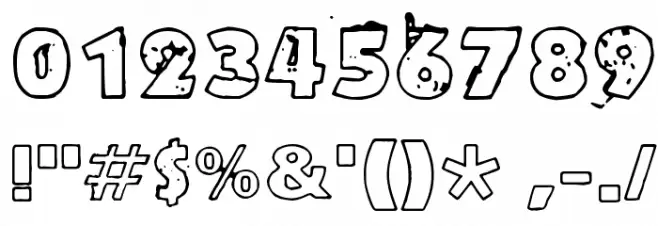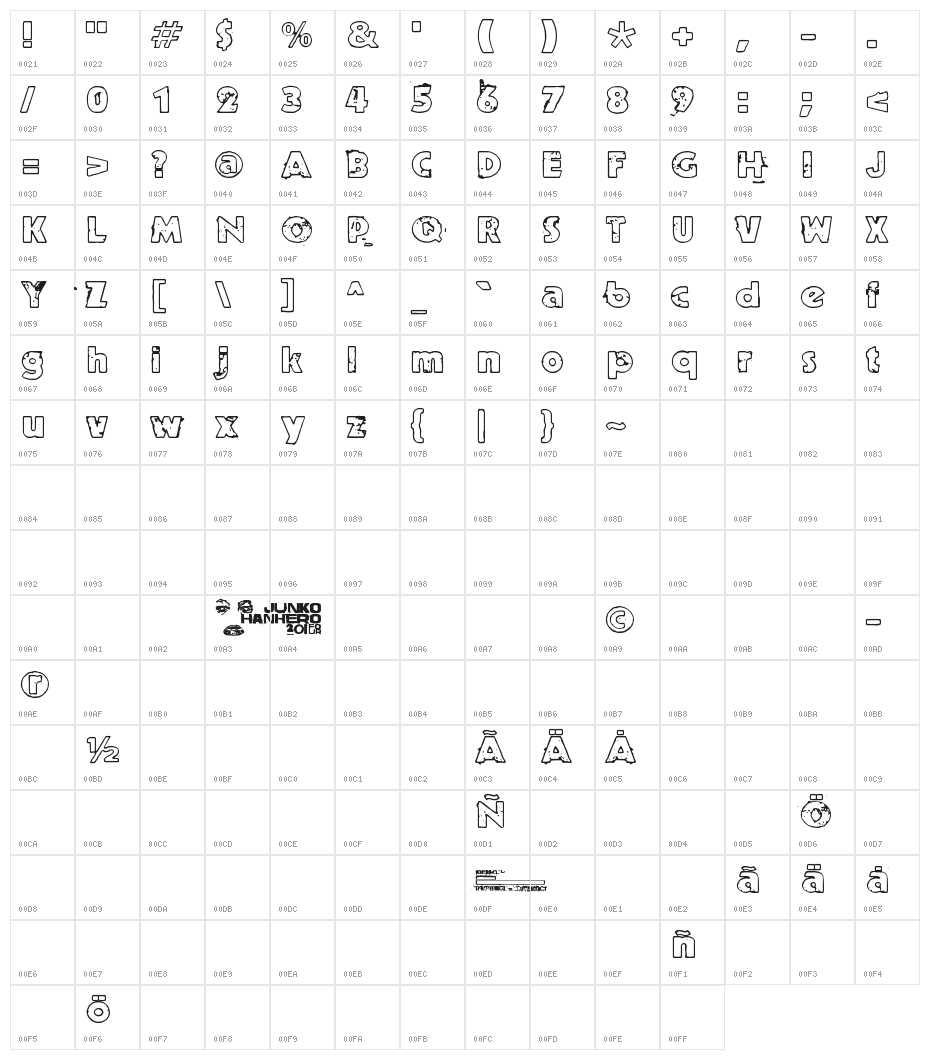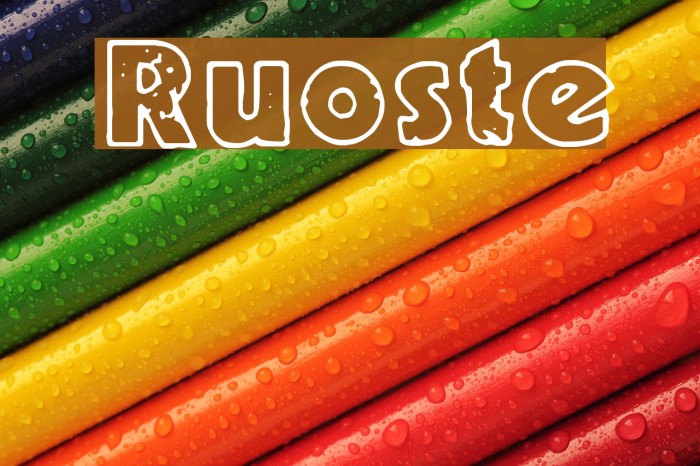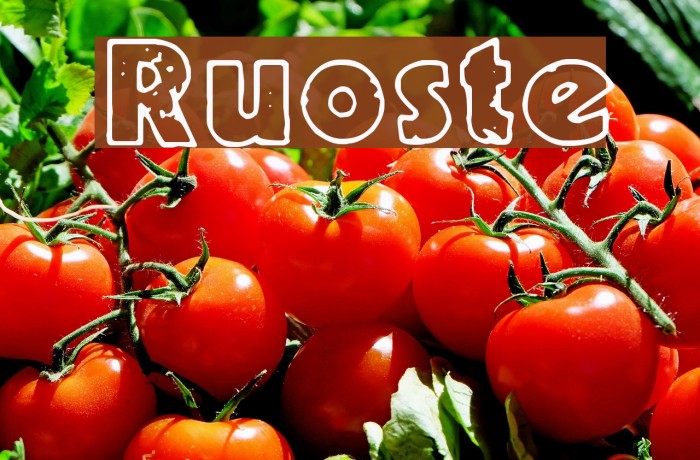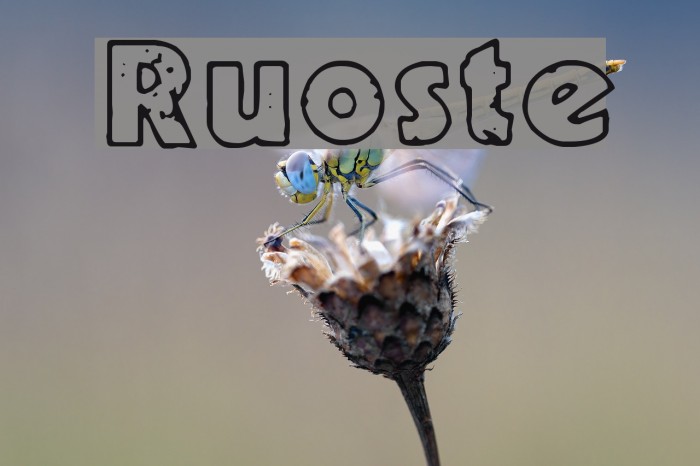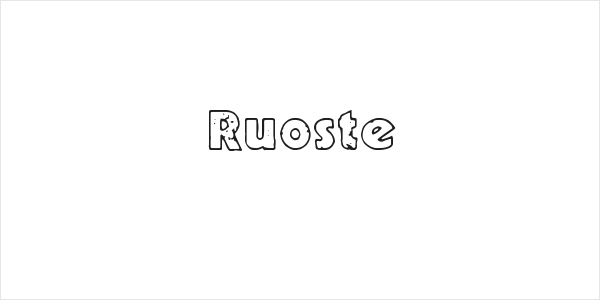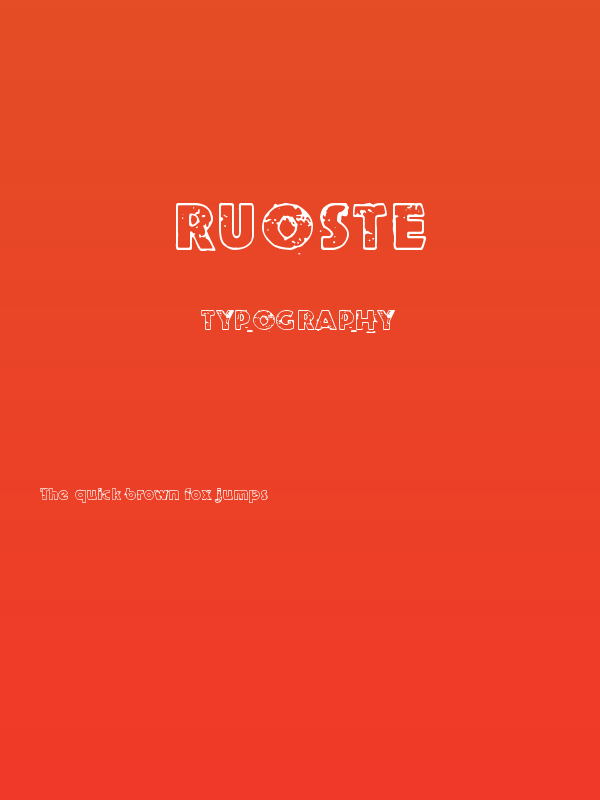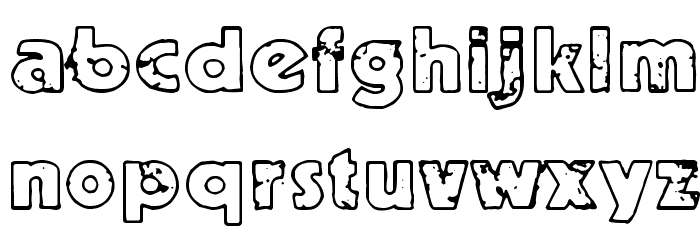
Ruoste Font
Ruoste Description
This font features a rugged, distressed style that mimics the appearance of weathered or rusted metal. Each character is bold and substantial, with a rough texture that adds a sense of age and wear. The uppercase and lowercase letters maintain a consistent design, with irregular edges and a slightly uneven baseline that enhances the vintage, industrial feel. The numerals and special characters follow the same aesthetic, making the font versatile for various design needs. Its unique appearance makes it ideal for projects that require a gritty, authentic look.
RUOSTE UPPERCASE
RUOSTE LOWERCASE
RUOSTE OTHER CHARS
| Proposed Projects | Ideal for branding, posters, album covers, and any design needing a gritty, aged look. |